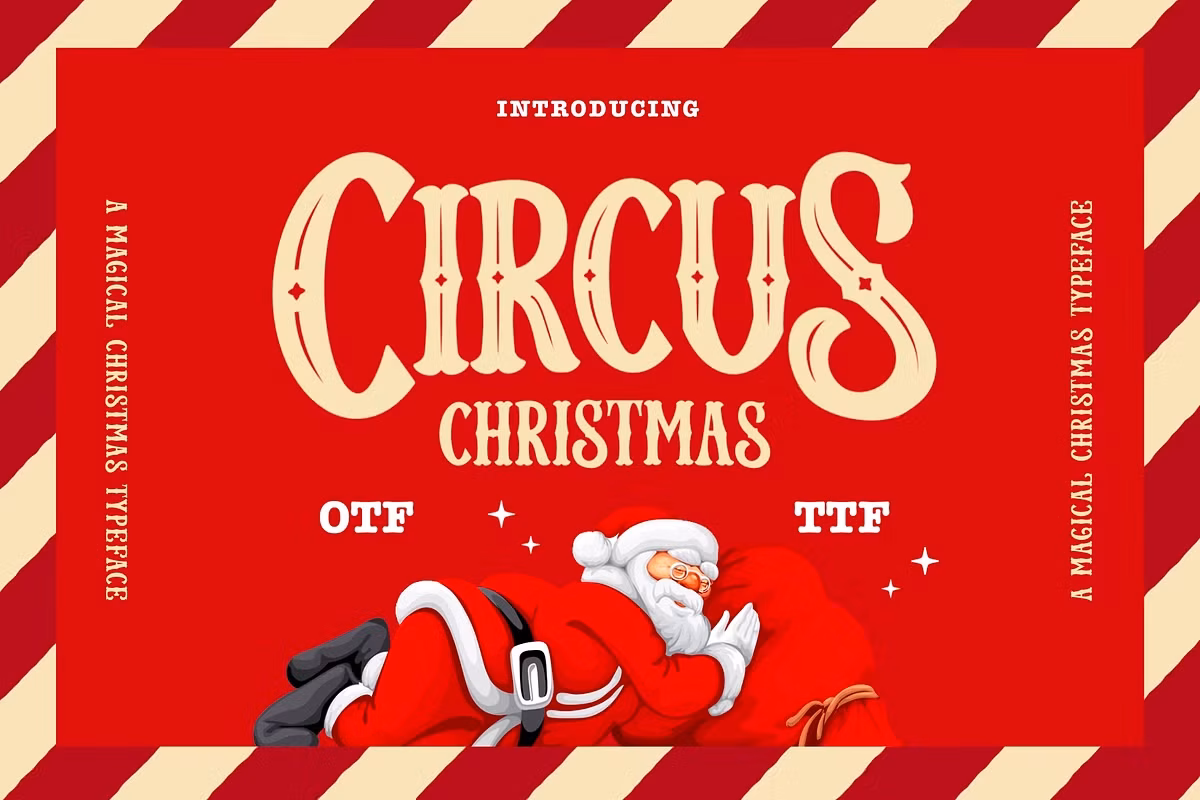
Circus Christmas Font - Fancy Font Free Download
Celebrate the season in style with Circus Christmas Font - Fancy Font Free Download, a whimsical and festive typeface perfect for holiday-themed designs. You need to purchase this font for commercial use. However, you can test it for personal or non-commercial projects with Circus Christmas Font - Fancy Font Free Download. Its playful curves and decorative flair make it ideal for Christmas cards, event posters, holiday branding, gift tags, and more. Designers love its cheerful and theatrical vibe, bringing joyful energy to any project. Download Circus Christmas Font - Fancy Font Free Download today and add a magical holiday touch to your creative work.